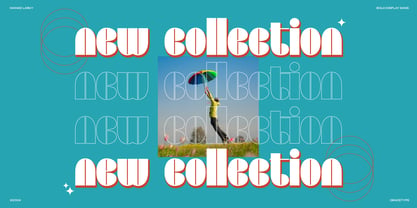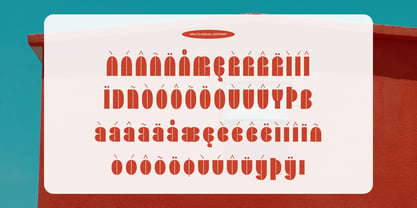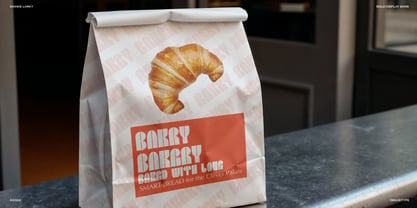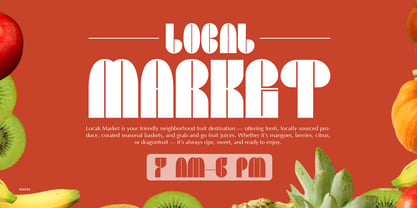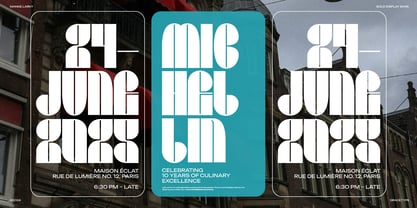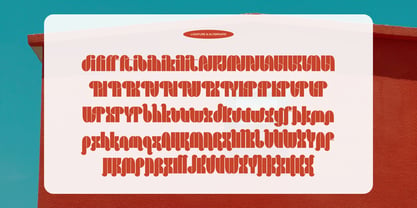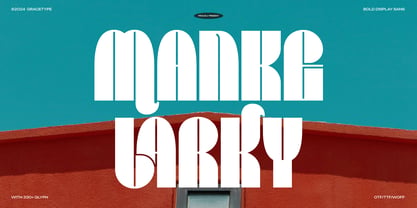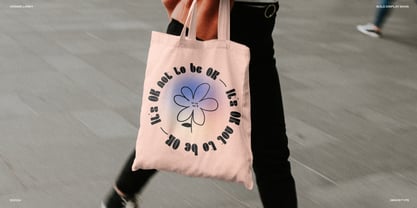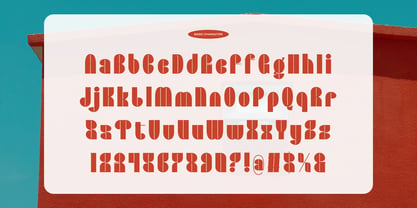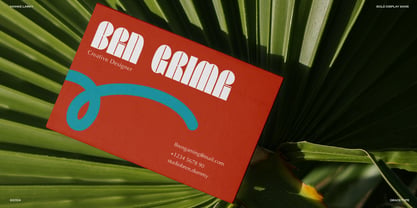
Manke Larky
by Tini Fitriani
Manke Larky | Bold Display Sans, from Gracetypestudio, suitable for any projects such as: logos, branding projects, homeware designs, product packaging, mugs, quotes, posters, shopping bags, t-shirts, book covers, name card, invitation cards, greeting cards, label, photography, watermark, special events, and all your other lovely projects that need a Bold Display Sans taste.
• Regular and Italic
• Alternate and Ligature